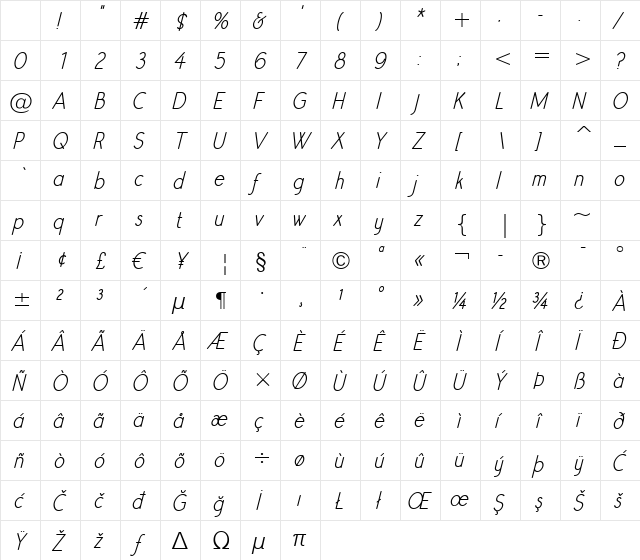
Register Sans BTN Cn Oblique Free Font
Register Sans BTN Cn Oblique
Design Context for Register Sans BTN Cn
Register Sans BTN Cn is a composed and adaptable typeface that performs quietly and consistently across a wide range of design contexts. The slanted form adds forward momentum and visual energy.
Pro Tip: Use Register Sans BTN Cn for emphasis, pull quotes, and subheadings where its slanted energy can add rhythm to the layout.